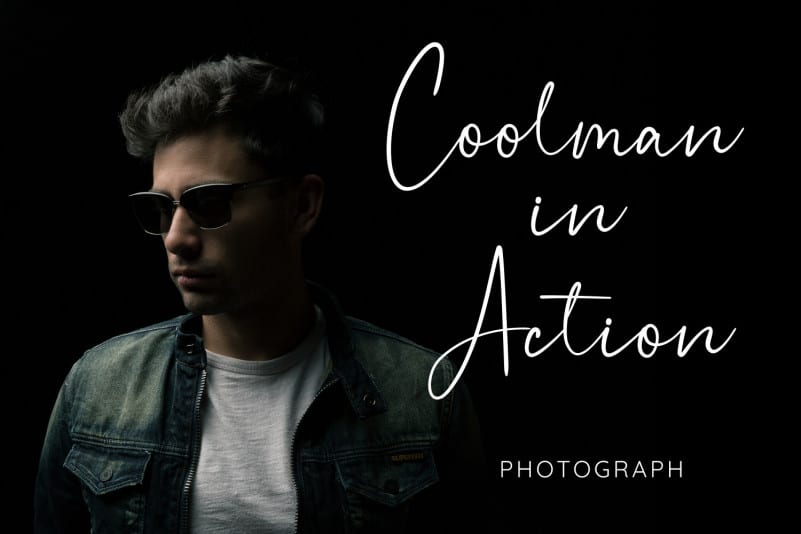
Belyta Signature Script Font
Belyta Signature Script Font is a relaxed and flowing Handwritten Font. Incredibly versatile, this font fits a wide pool of designs, elevating them to the highest levels. Add this font to your favorite creative ideas and notice how it makes them come alive!